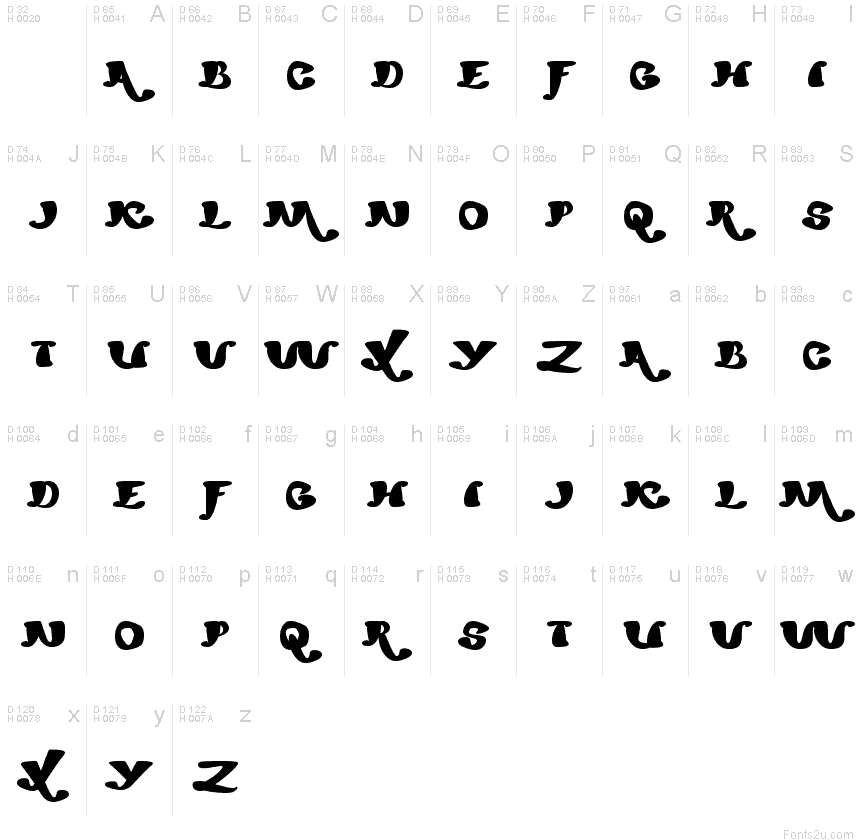
Mexicano Chili Sauce by Weknow is a free cartoon display font with swollen letterforms and a lively, uneven silhouette. Broad curves pinch into narrow joins, and several letters finish in deep hooks or soft drooping points that give the line a distinctly wobbly motion.
Hot sauce packaging is its most convincing role, since the exaggerated shapes can echo illustrated peppers and hand-painted shop signs, but the same comic bounce also fits casual restaurant branding and music festival posters. In publishing, it is suited to humorous comic covers and spicy recipe features.